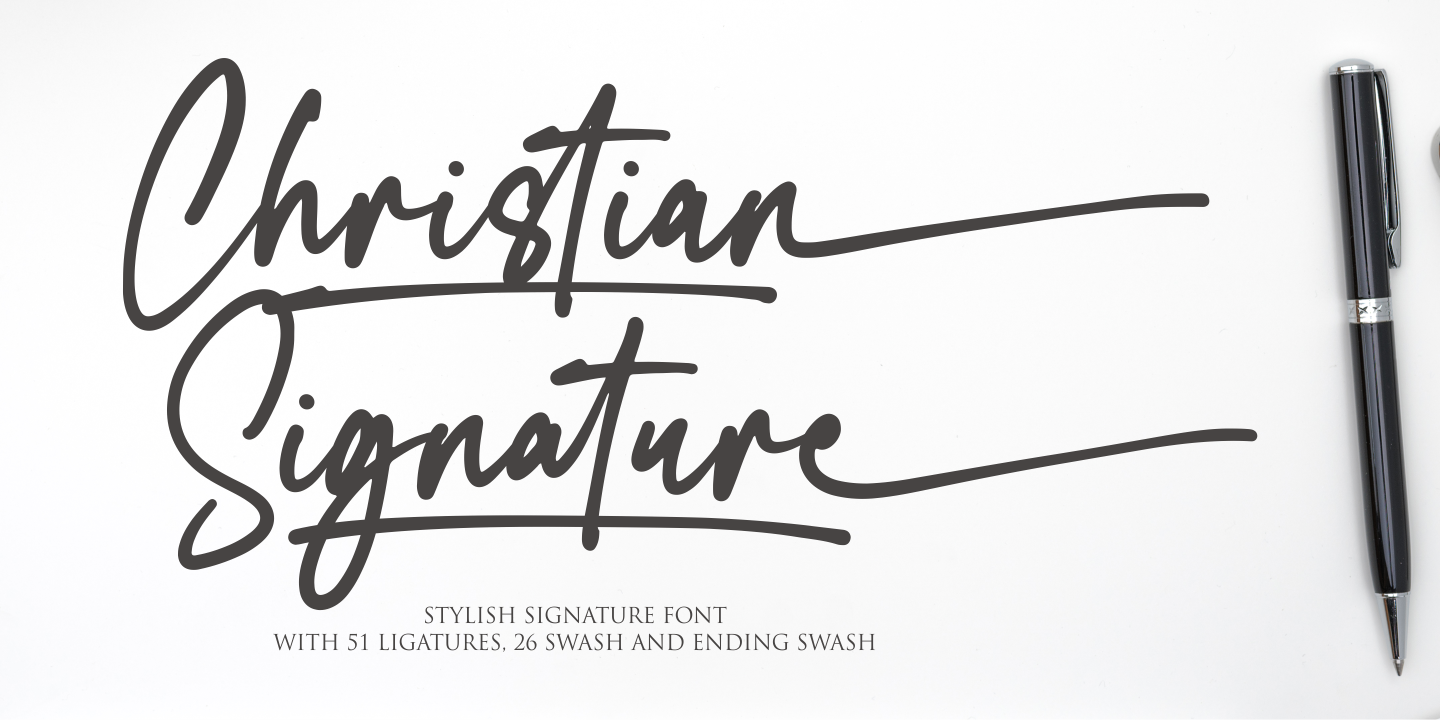
Christian Signature Font is perfect for church wedding invitations, biblical scripture displays, religious ceremony programs, Christian ministry branding, faith-based publication covers, baptism certificates, confirmation materials, prayer book designs, Christian retreat signage, and spiritual devotional graphics.
What makes Christian Signature Font so exciting is its graceful embodiment of spiritual elegance and divine inspiration through flowing letterforms that capture the sacred beauty and peaceful serenity of Christian faith traditions. The font's design philosophy honors the reverent nature of religious expression, featuring gentle curves, harmonious proportions, and graceful details that mirror the flowing movements of sacred calligraphy and the timeless beauty found in illuminated manuscripts and biblical texts. Each character radiates spiritual warmth and divine grace, creating a visual language that instantly communicates faith, reverence, and the profound peace that comes from spiritual devotion and Christian fellowship.
The Christian Signature Font family includes spiritual variations: Regular, Bold, Light, Medium, Condensed, Extended, Italic, Sacred, and Blessed styles. Each variation maintains the font's characteristic Christian elegance while offering different levels of spiritual formality and devotional detail for various religious and faith-based design applications.
When searching for a typeface that embodies the essence of Christian faith and spiritual devotion, Christian Signature Font Free Download represents the perfect fusion of sacred tradition with contemporary typography that elevates any project to new dimensions of spiritual authenticity and religious appeal.
The reverently crafted letterforms of Christian Signature Font demonstrate superior attention to spiritual design principles, featuring sacred proportions, peaceful spacing, and divine curves that ensure optimal readability while maintaining the font's distinctive Christian character. Its versatile design adapts beautifully from intimate prayer cards to grand church sanctuary displays.
Professional designers working on religious institutions, Christian organizations, and faith-based publications particularly value the font's ability to convey spiritual authenticity, divine inspiration, and Christian values. The typeface works exceptionally well for projects targeting faith communities, religious educators, and anyone seeking to project sacred positioning and spiritual excellence.
The comprehensive OpenType features of Christian Signature Font include sacred alternates, devotional ligatures, and specialized religious characters that enable designers to create authentic Christian typography while maintaining the font's distinctive spiritual character throughout all design elements and faith-based applications.